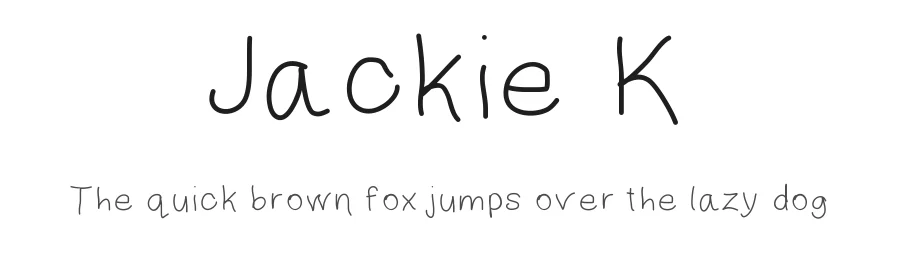
About Jackie K Cursive Font
Jackie K Cursive is a script & handwritten font designed by Jackie Barabash. It includes 103 glyphs, a medium weight, TTF (TrueType) format, and 107 languages. Jackie K Cursive is free to download; check the license details on this page before commercial use. Script & handwritten fonts like Jackie K Cursive work best for wedding invitations, greeting cards, signatures, and elegant branding.
Jackie K Cursive Font is a script font that shines as a display or heading face. Pair it with a clean sans-serif or serif font for body text β the contrast creates a clear hierarchy while the two styles stay balanced and easy to read.